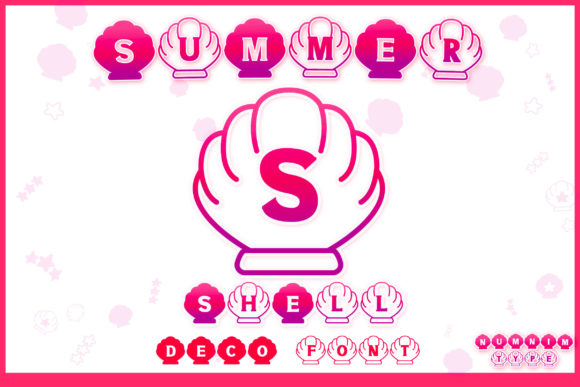
Prepare to dive into the mesmerizing world of Summer Shell, a captivating decorative font that will ignite your creativity and elevate your designs to new heights! Its playful and enchanting characters dance across the page, inviting you to embark on an artistic exploration that's both fun and effortlessly stylish.
Picture this: your designs adorned with the whimsical charm of Summer Shell, capturing the carefree spirit of summer with every stroke. Imagine creating vibrant stickers that spark joy with their playful messages, or designing mugs that evoke the warmth of the season with their enchanting quotes. T-shirts adorned with Summer Shell's captivating curves will turn heads, while ornaments and event cards will become cherished keepsakes, forever capturing the magic of special moments.
But Summer Shell's magic extends far beyond its aesthetic appeal. Its PUA encoding is the key that unlocks a treasure trove of glyphs and swashes, empowering you to unleash your creativity without limits. With Summer Shell at your fingertips, the possibilities are endless—a font that empowers you to turn your design dreams into a captivating reality.
Step into the world of Summer Shell, where your imagination takes flight and your designs blossom with playful elegance. Its enchanting characters will captivate your audience, leaving an unforgettable mark on every creation. Embrace the beauty of Summer Shell and watch your designs transform into works of art that inspire, uplift, and spread joy!